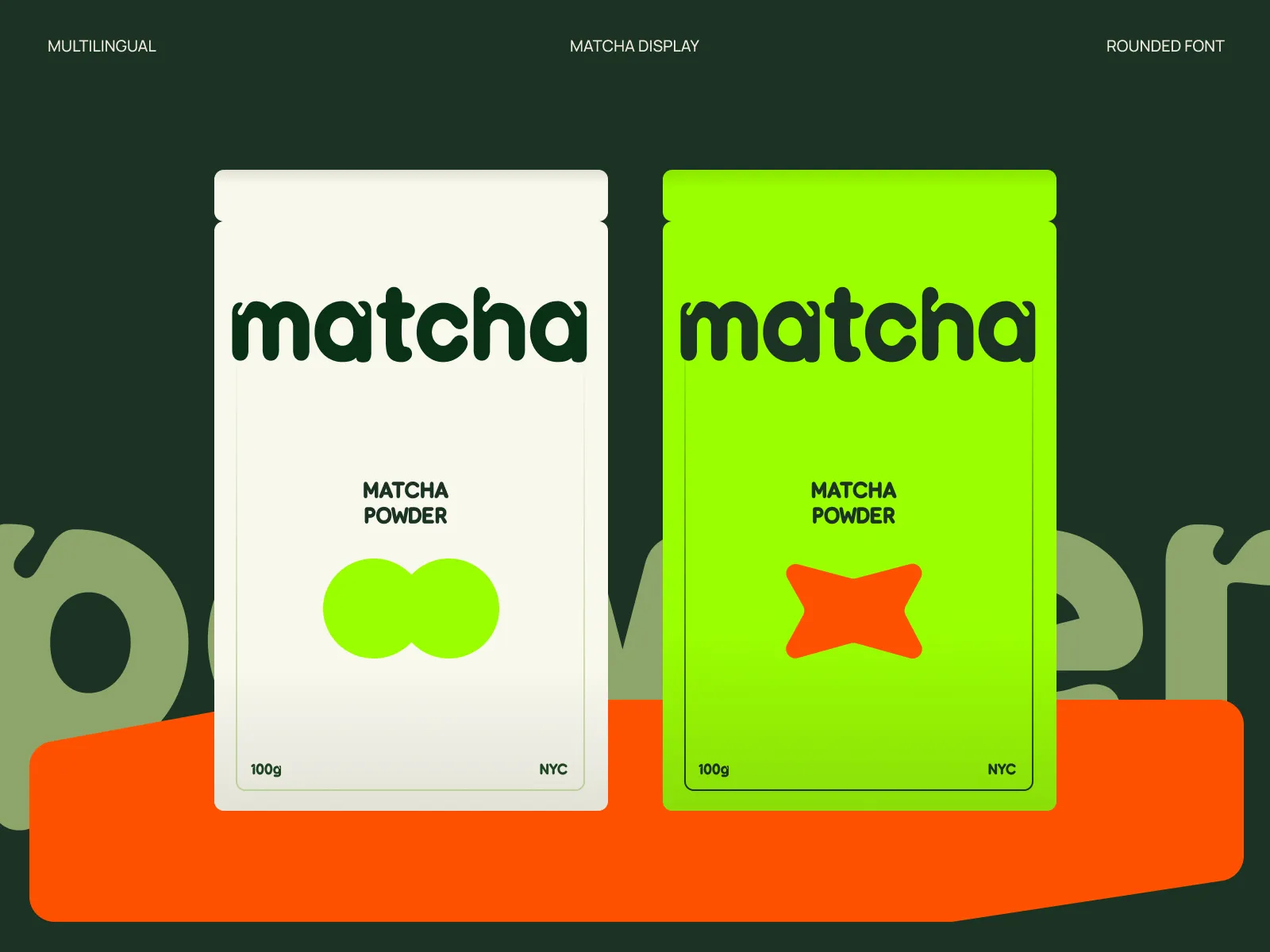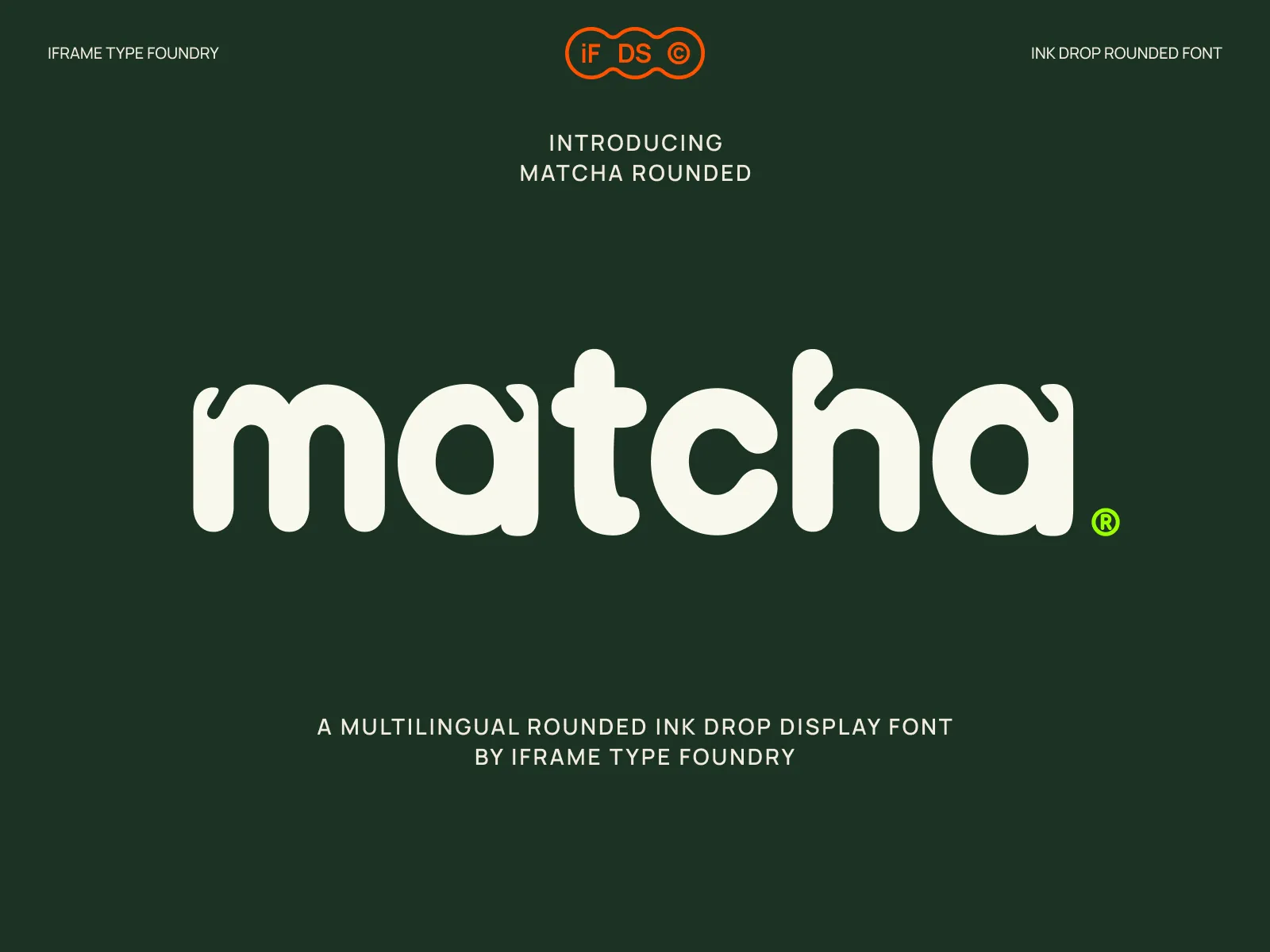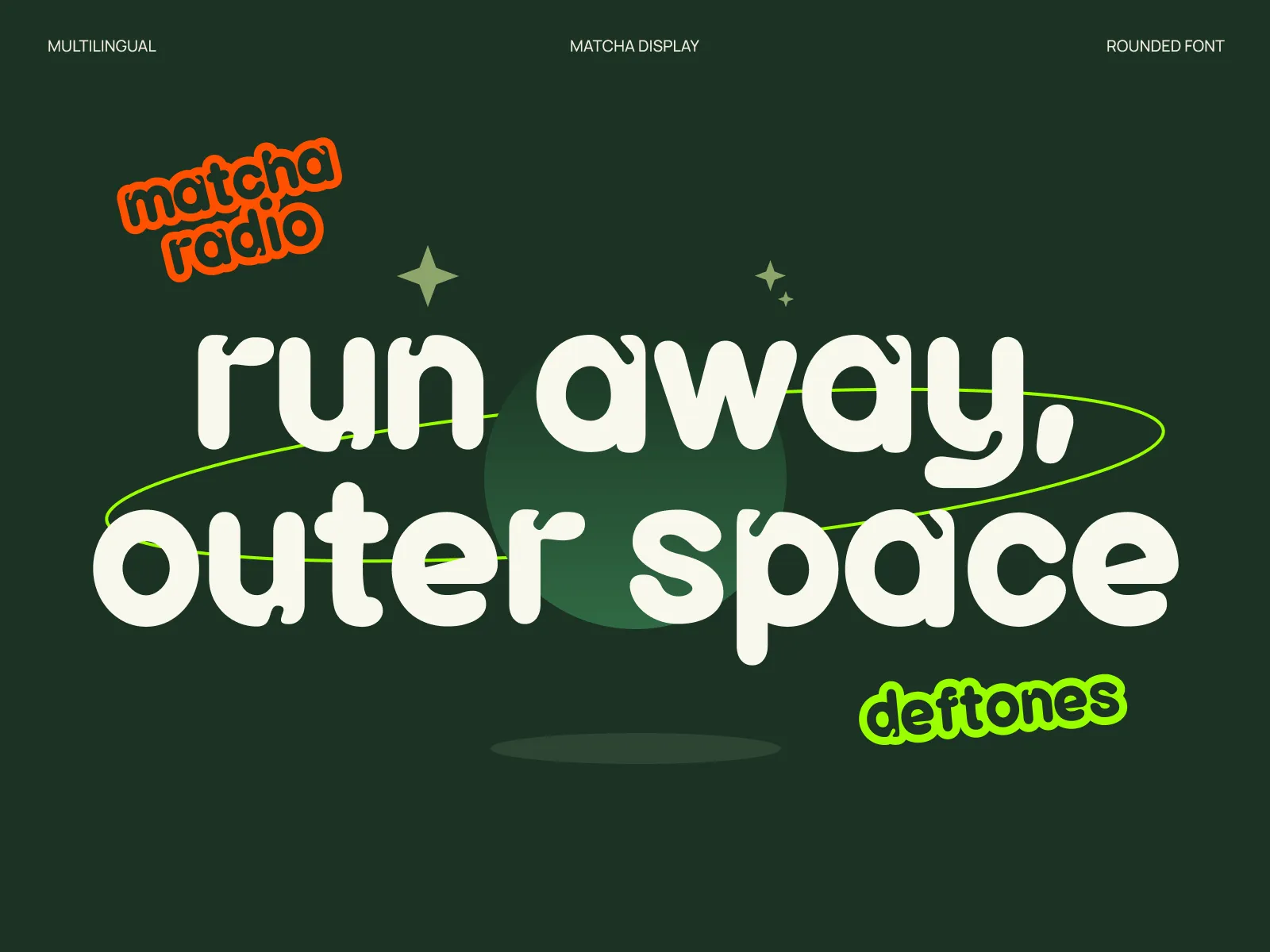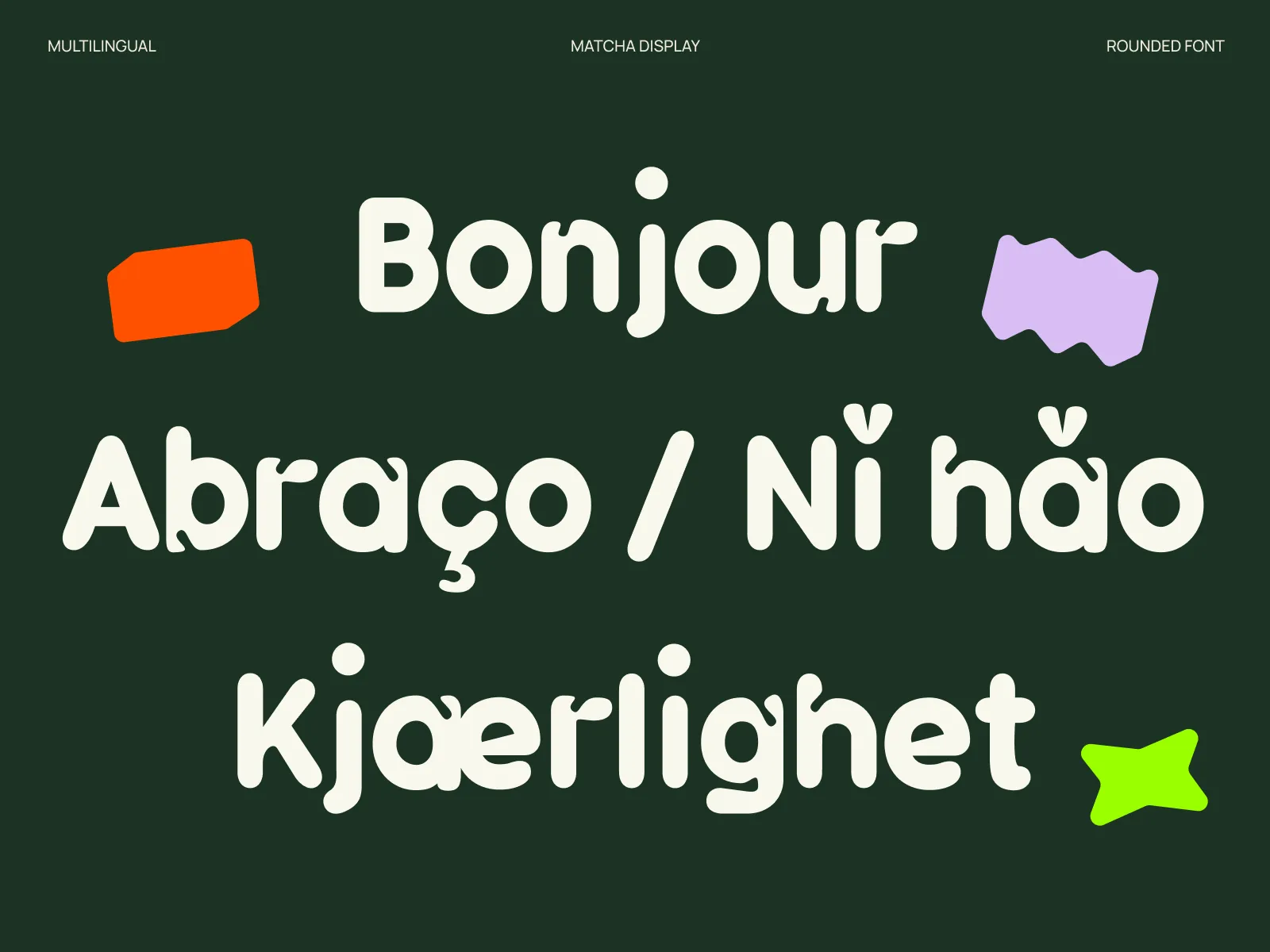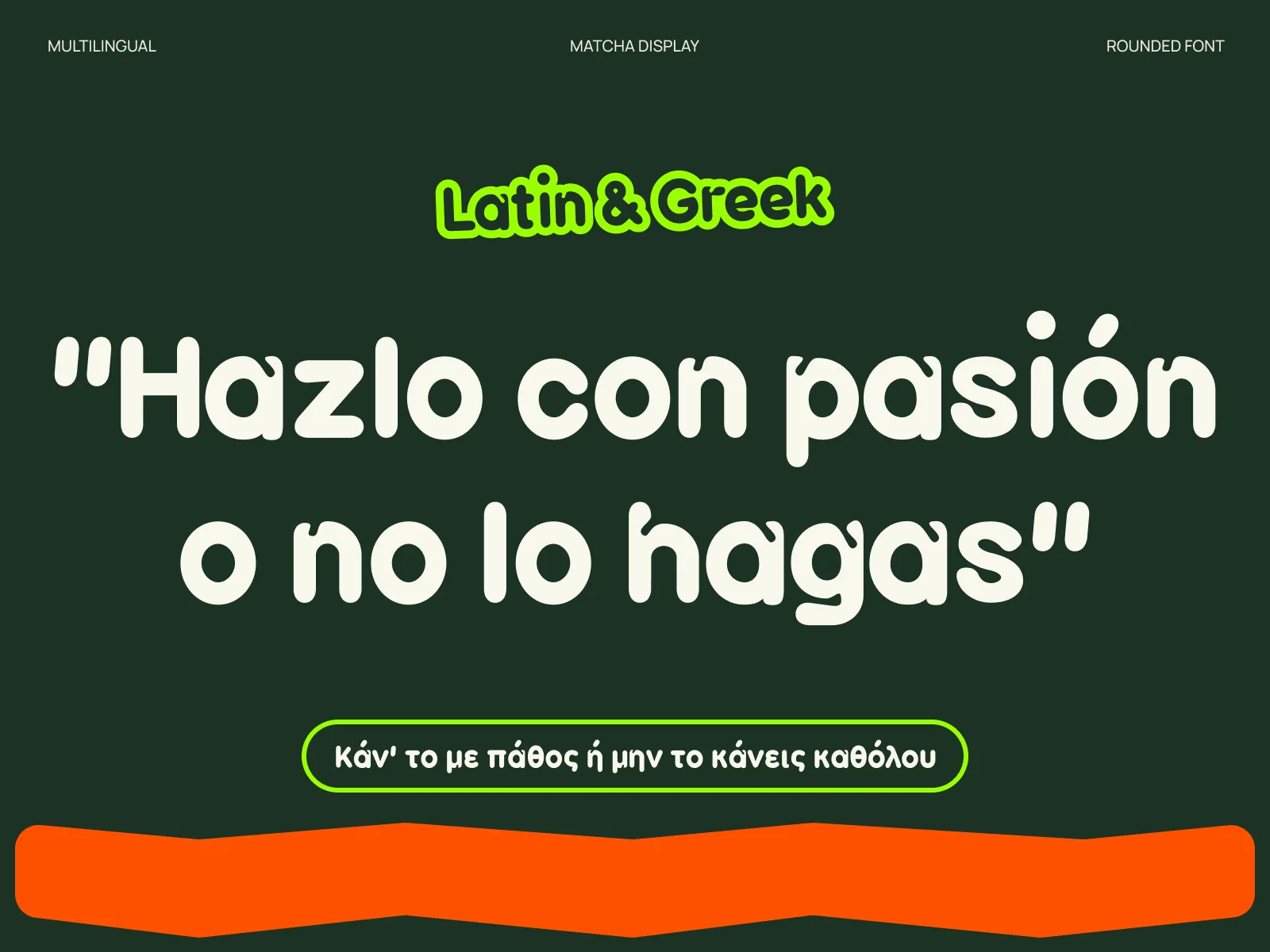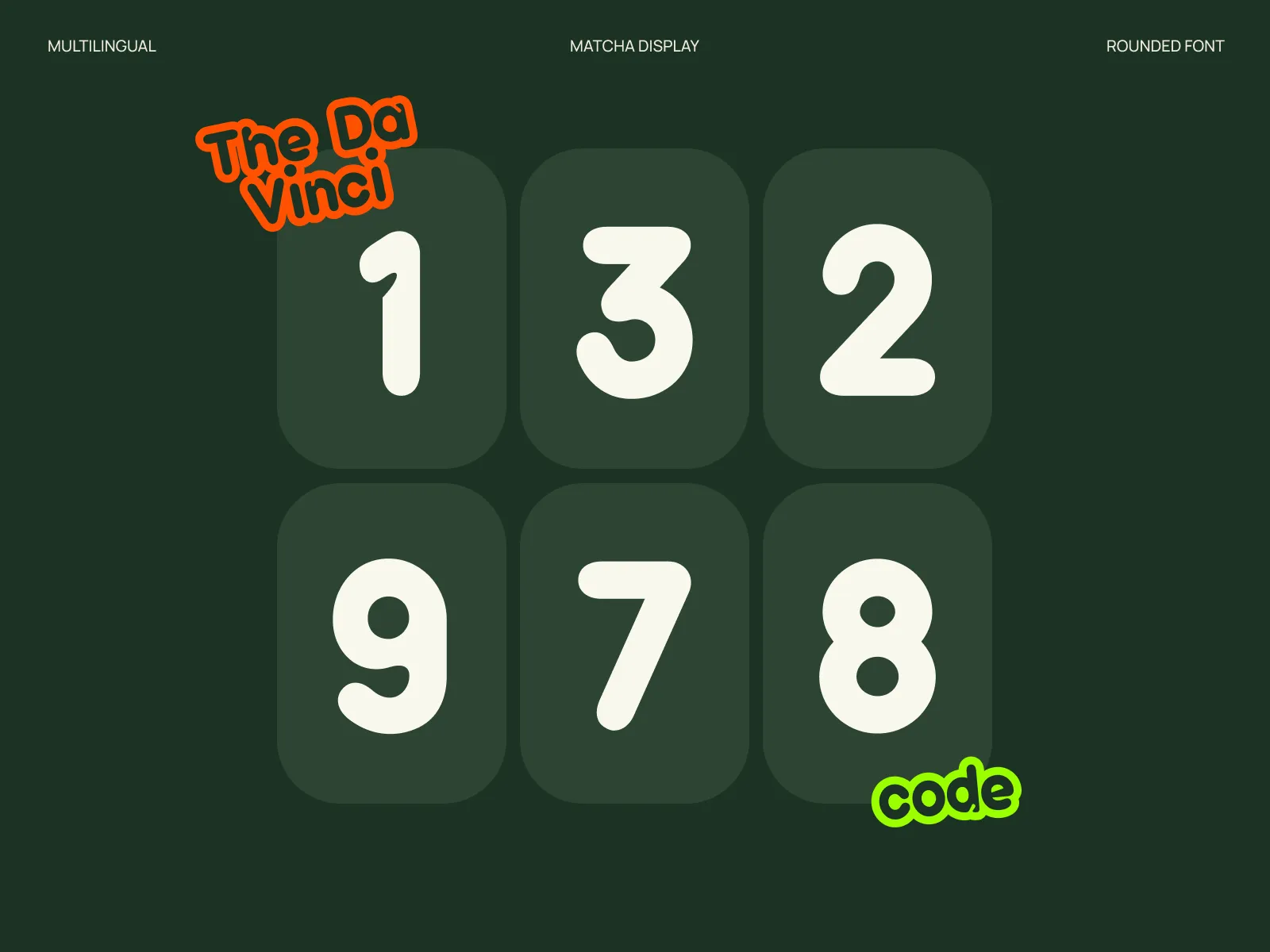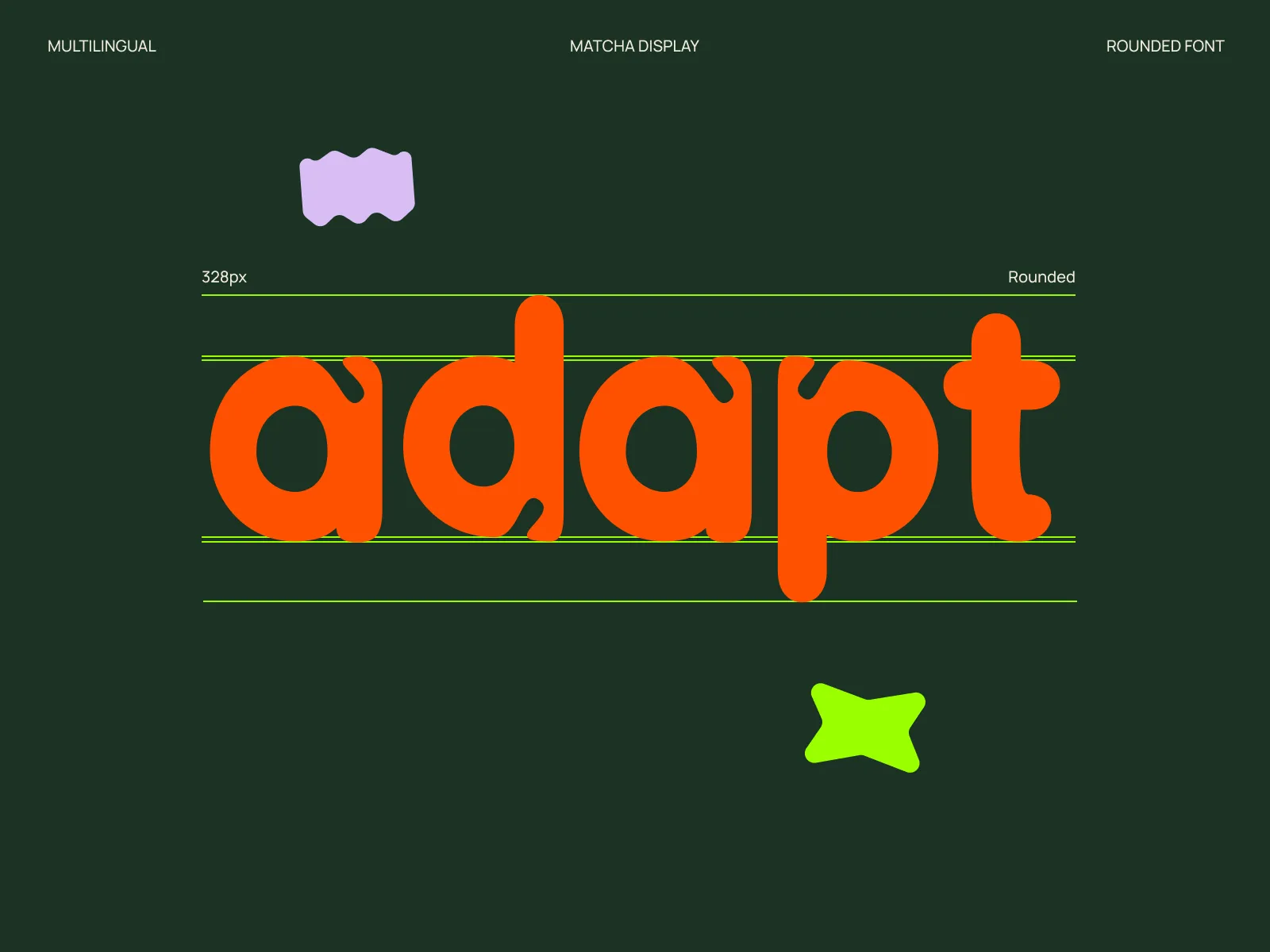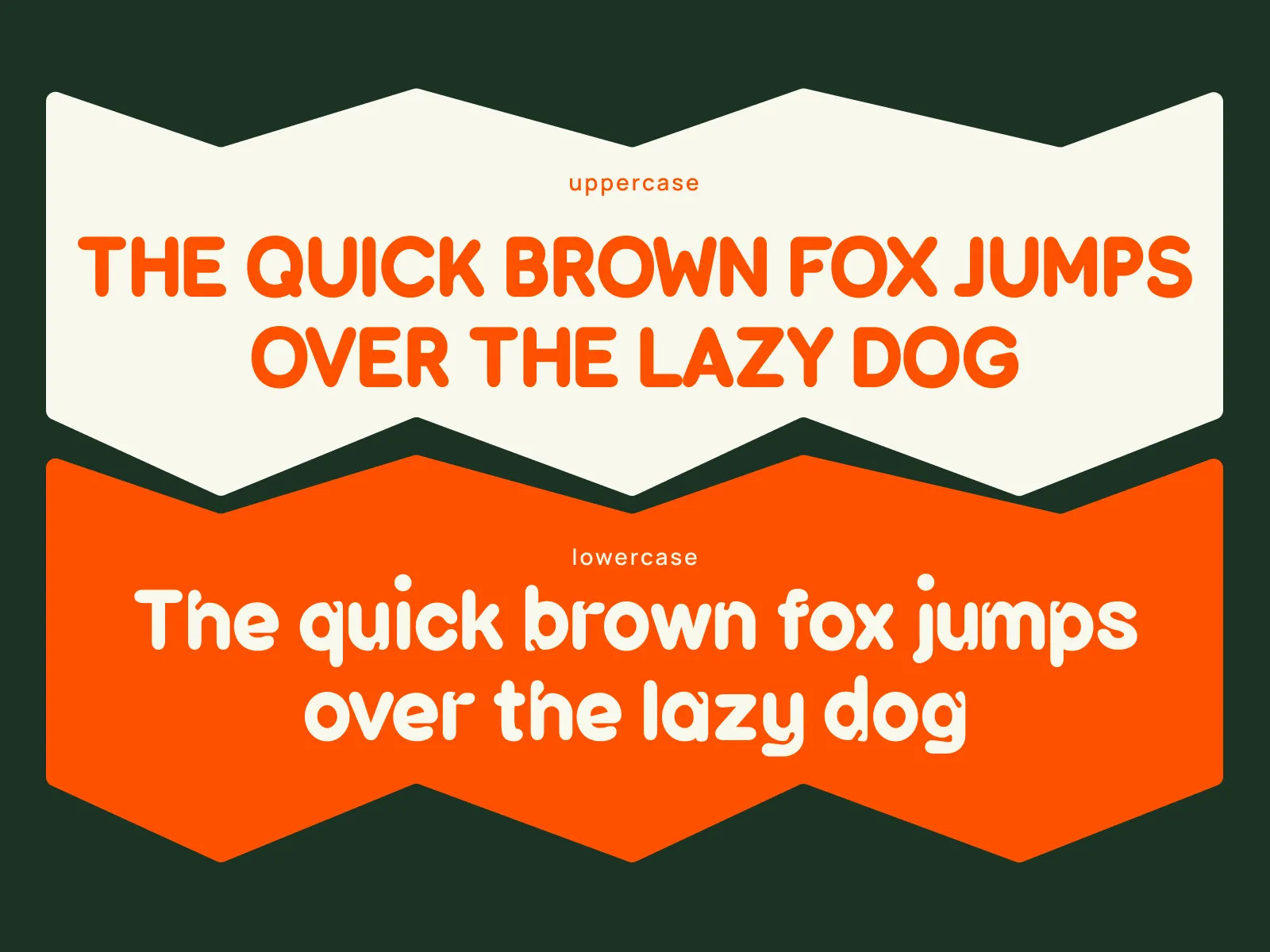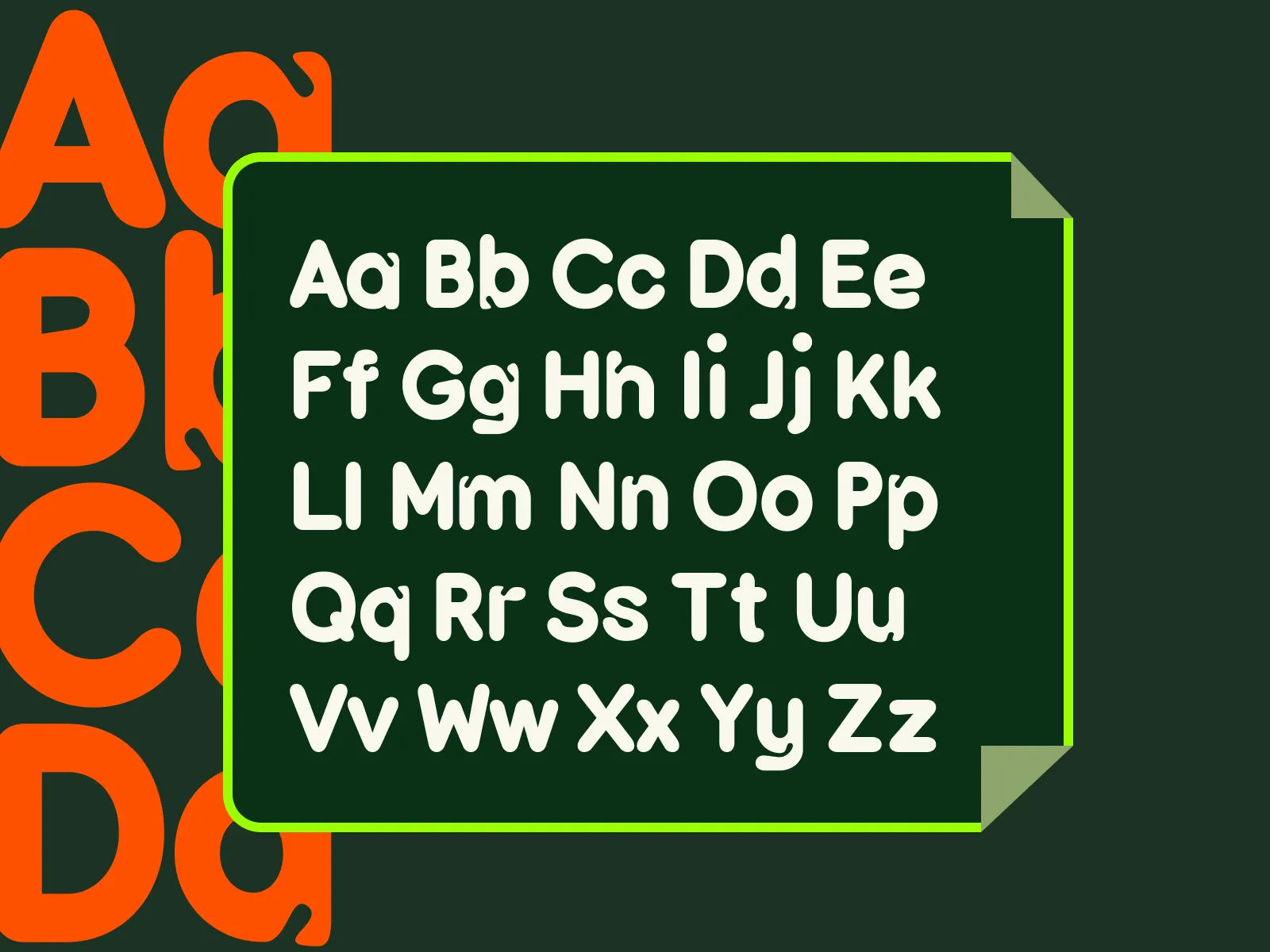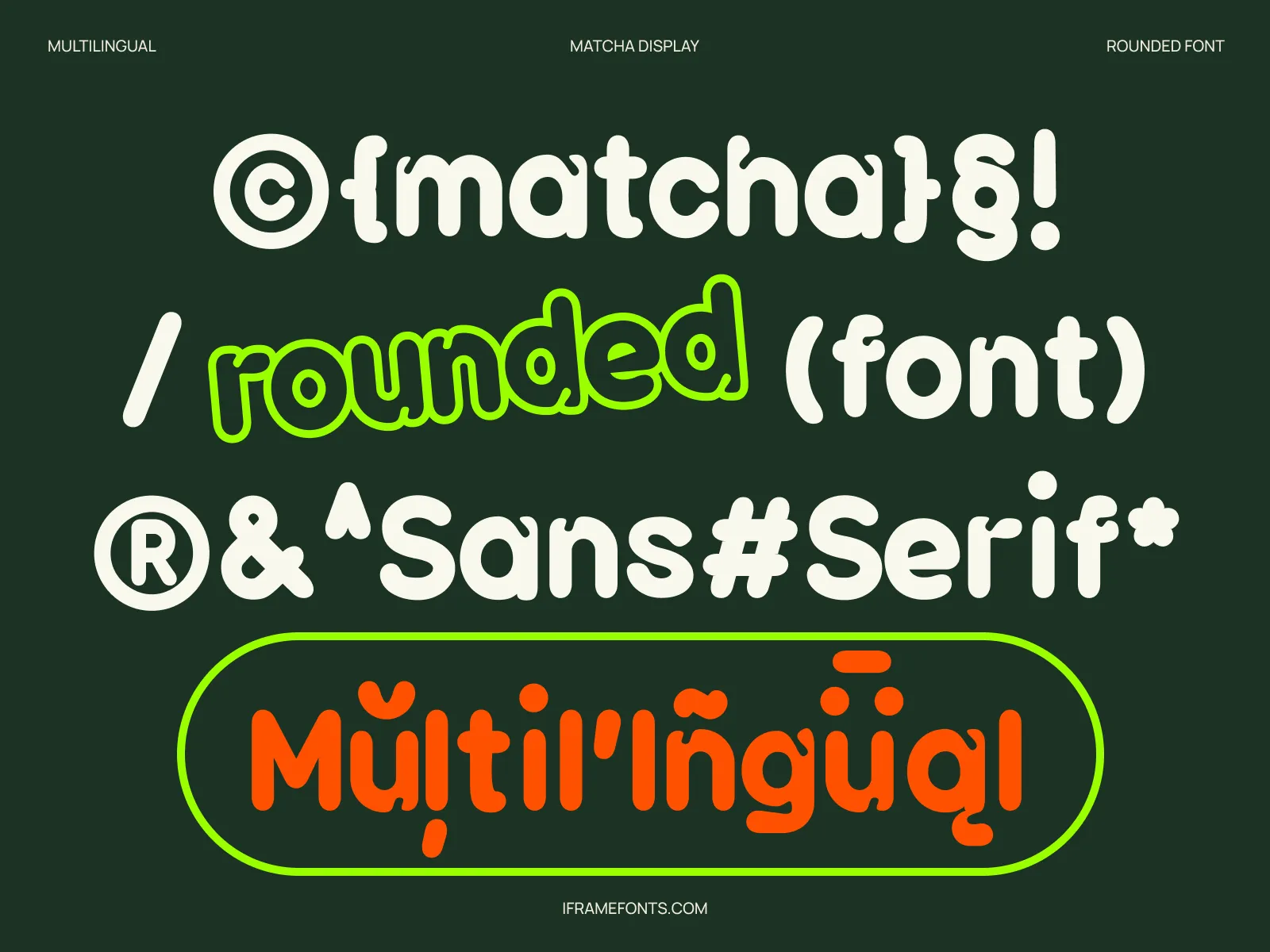
MATCHA ROUNDED FONT
Matcha Rounded is a multilingual ink drop display font engineered for professional graphic and web design applications. Developed by iframe Type Foundry, it combines robust structural letterforms with softened, rounded terminals to deliver strong visual impact for branding, packaging, and digital UI typography.
- Classification: Rounded Display Sans Serif
- Language Support: Comprehensive Latin and Greek character sets
- Multilingual: Extensive diacritics and accents for global compatibility
- Glyphs: Complete uppercase, lowercase, numerics, standard punctuation, and specialized typographic symbols
- Upper / lower case, numbers, punctuation
- Supported Languages: Latin & Greek